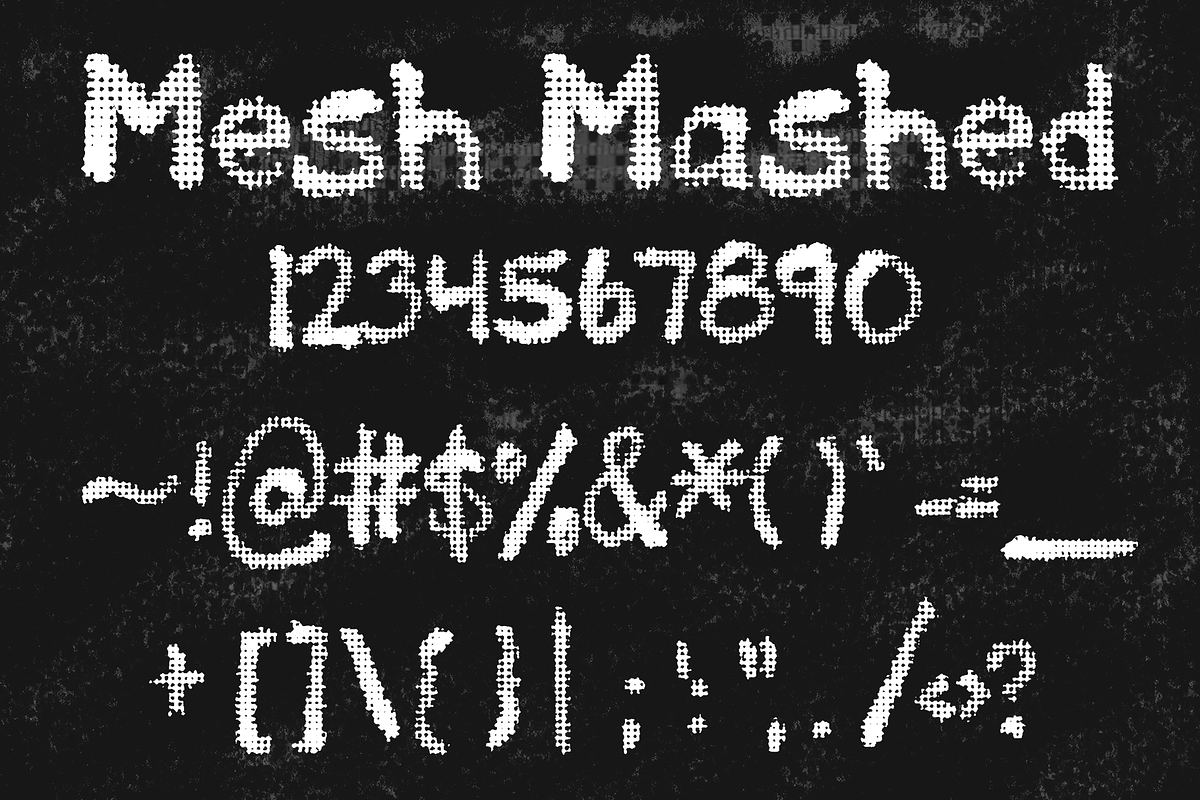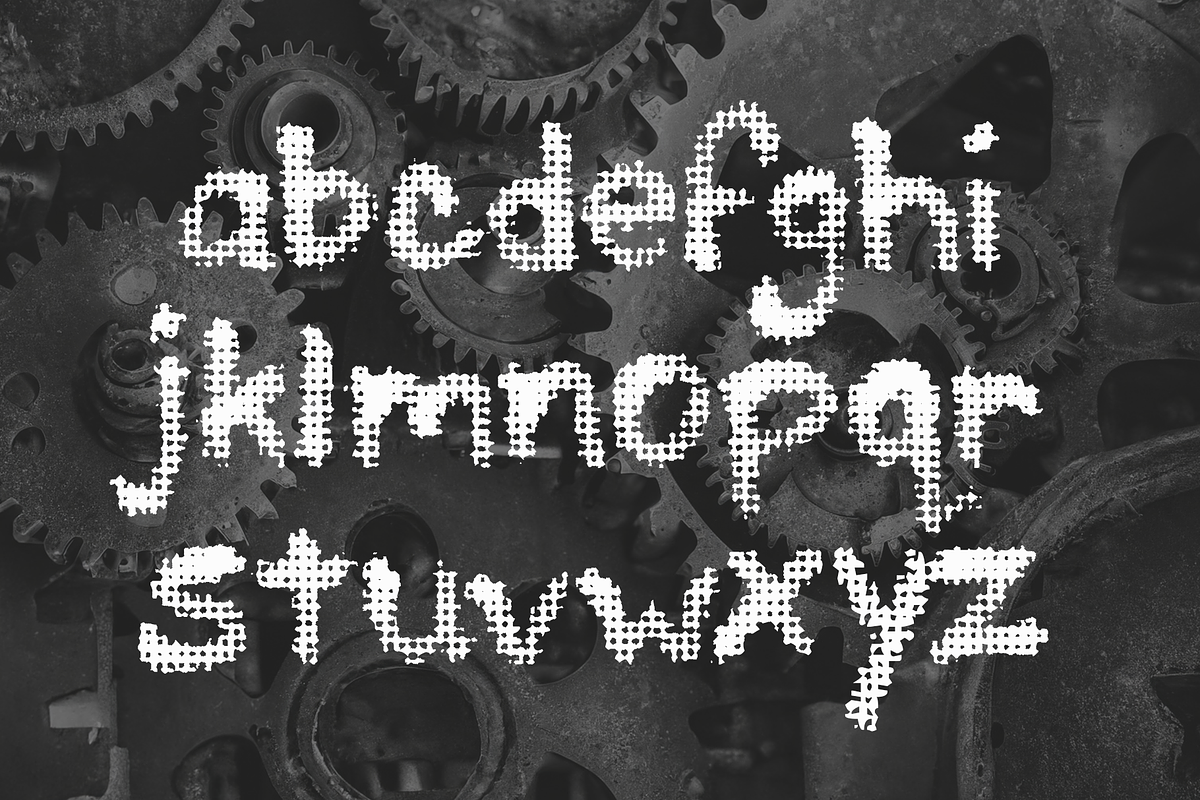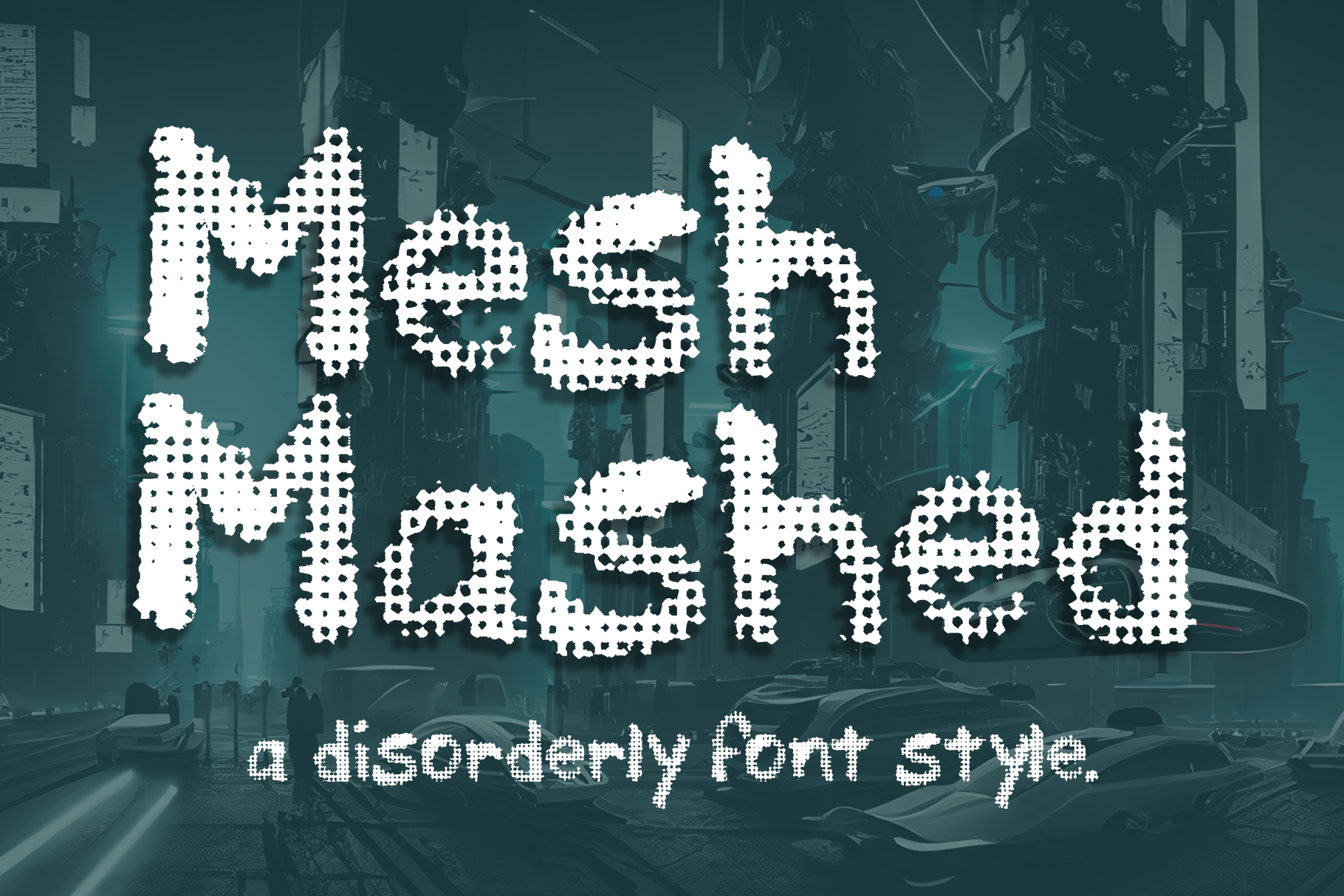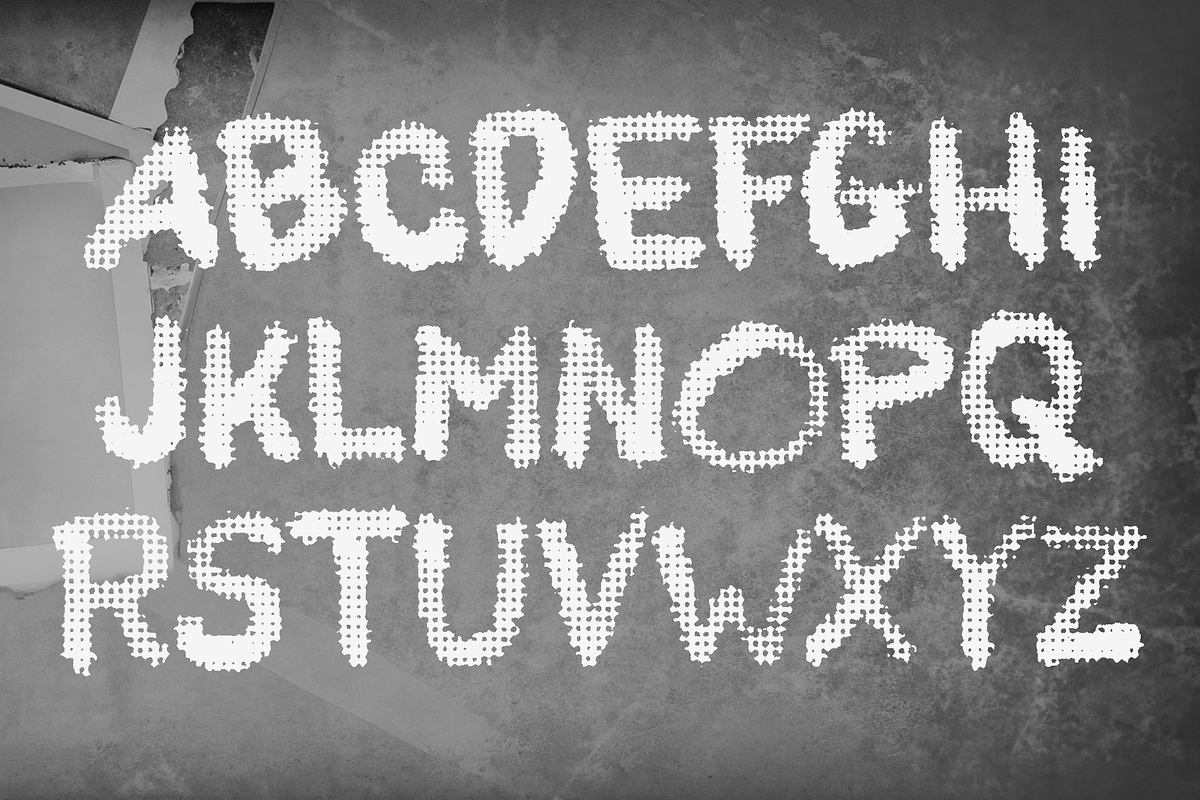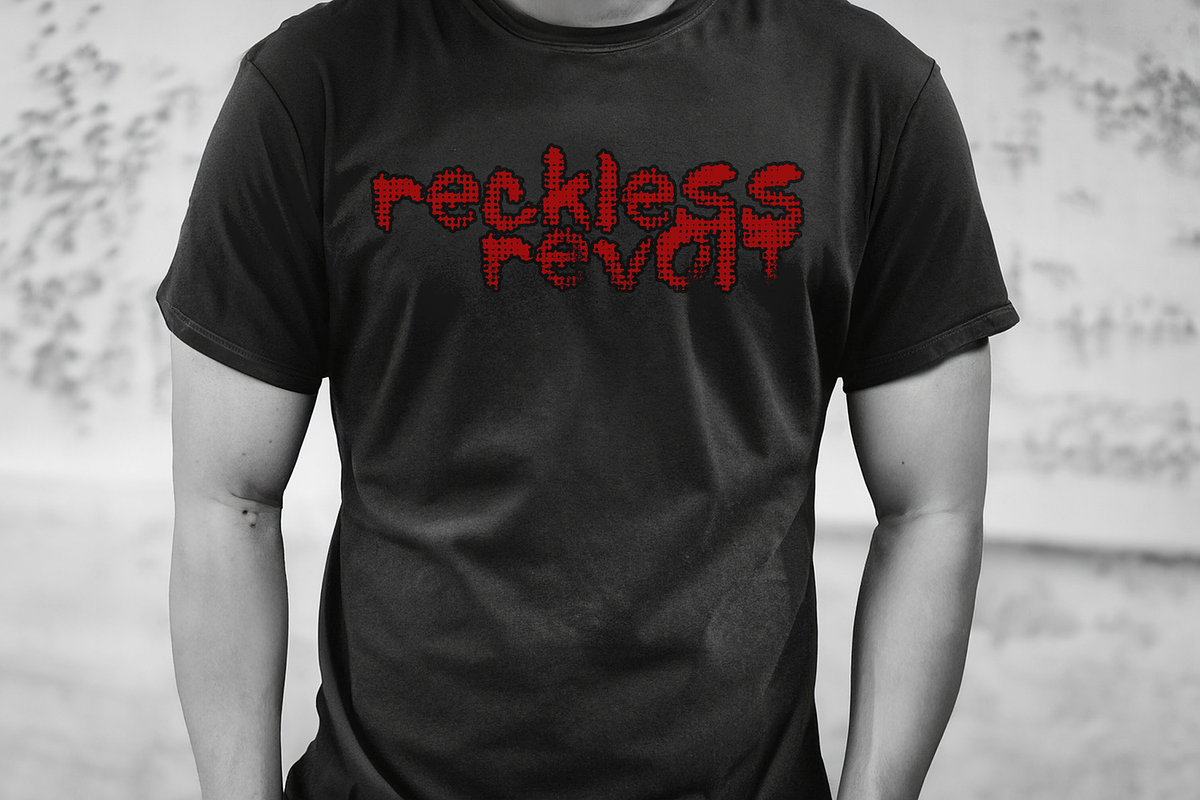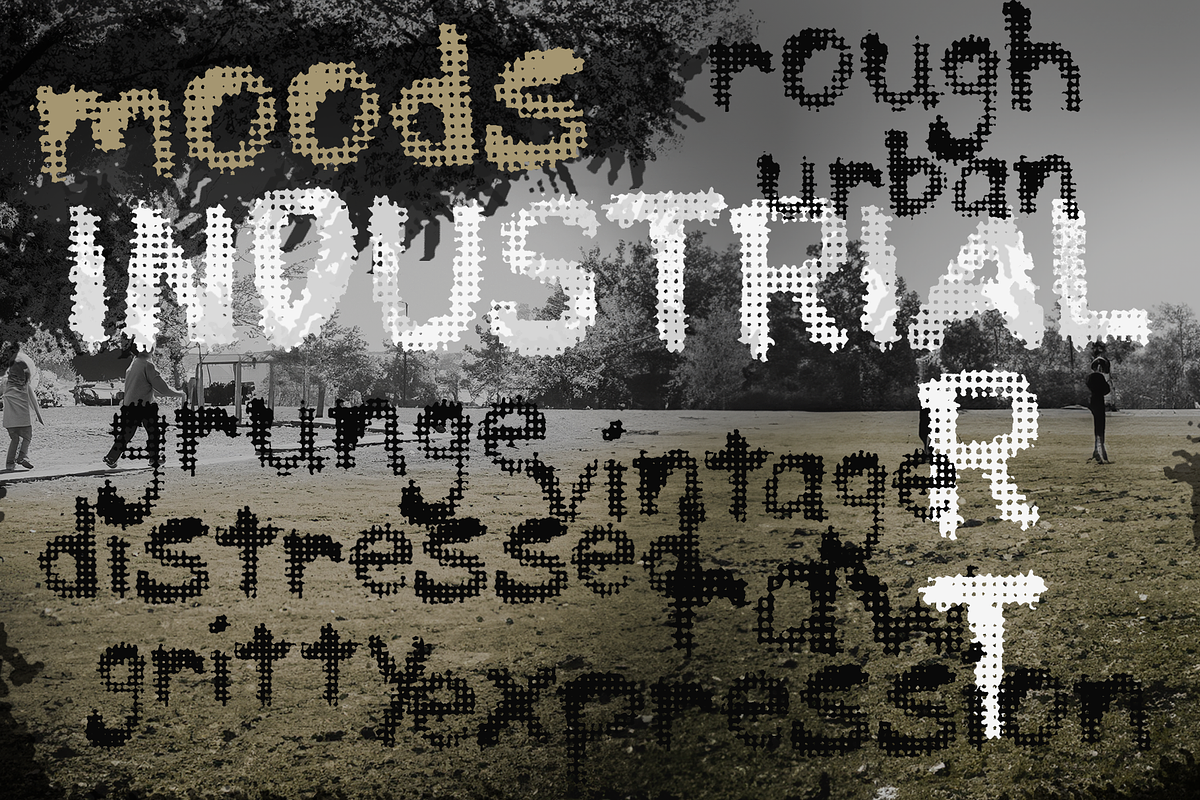
Mesh Mashed Font
Mesh Mashed - Large Print Grunge Font
Elevate your design game with "Mesh Mashed," a captivating large print font that fuses mesh-like intricacies with grunge aesthetics. Perfectly suited for graphic designers, illustrators, artists, and creative professionals, "Mesh Mashed" adds a bold, raw edge to your projects, making them impossible to ignore.
Unique Grunge Aesthetic: "Mesh Mashed" stands out with its unconventional and edgy design, making it ideal for projects that demand attention and individuality.
Versatile Application: Whether you're creating t-shirt designs, posters, website banners, or album covers, this font adapts seamlessly to various design mediums, adding character and depth.
Large Print Clarity: "Mesh Mashed" ensures your message is bold and legible, making it perfect for eye-catching headlines and focal points.
Make your design projects unforgettable with "Mesh Mashed." Download it now and experience the fusion of chaos and artistry, the essence of "Mesh Mashed."